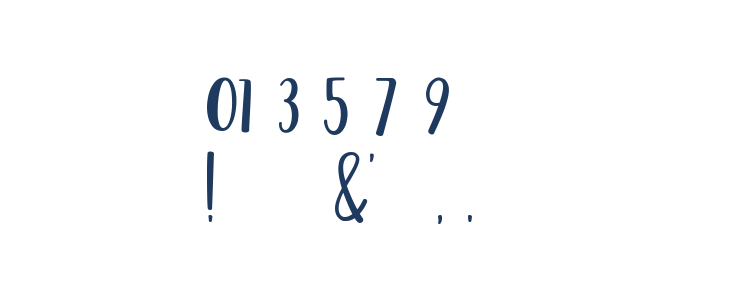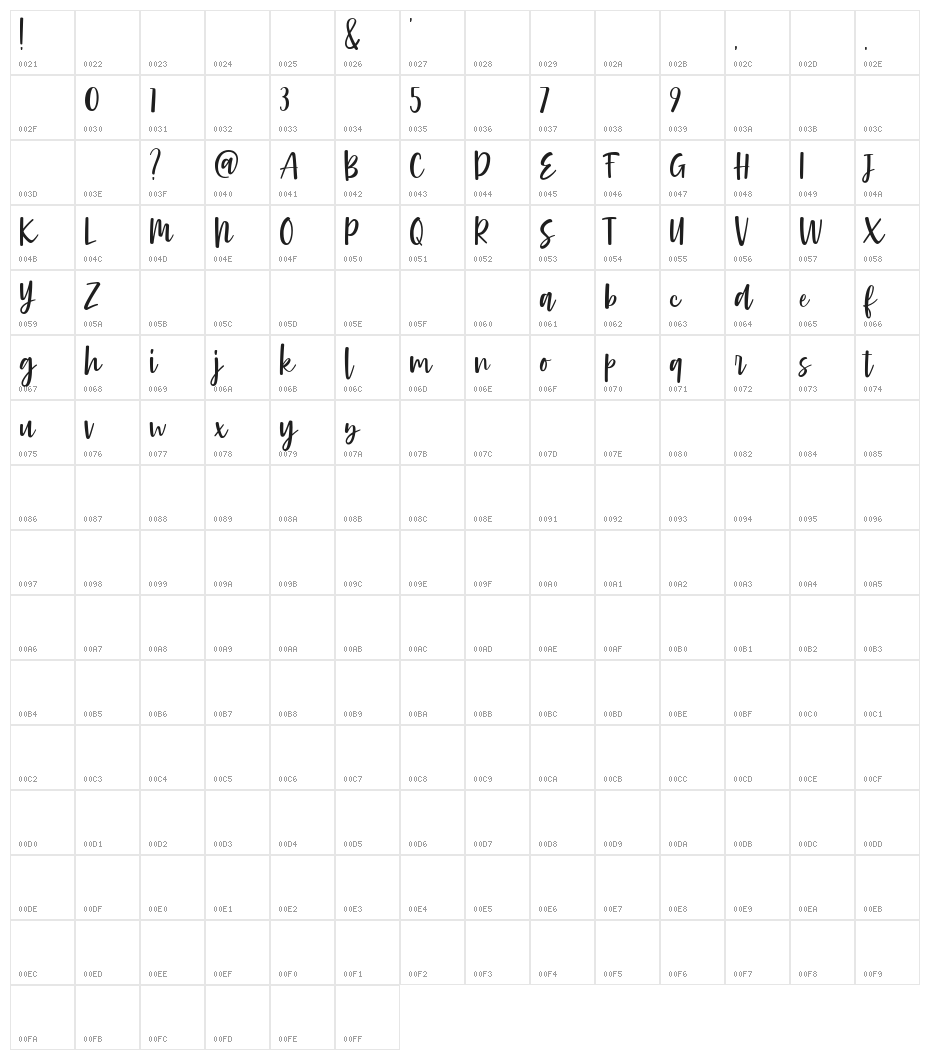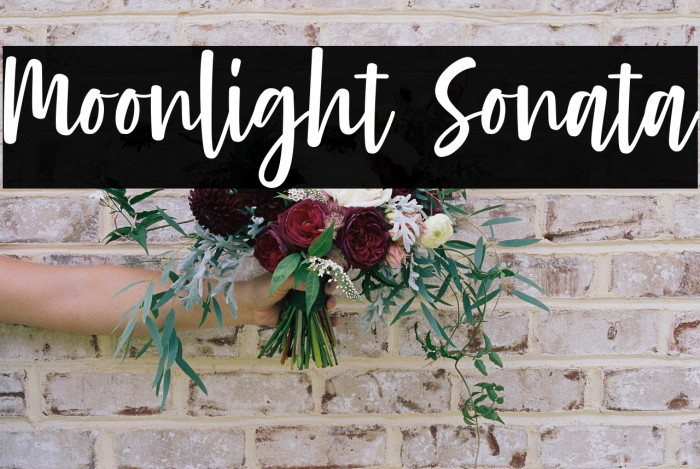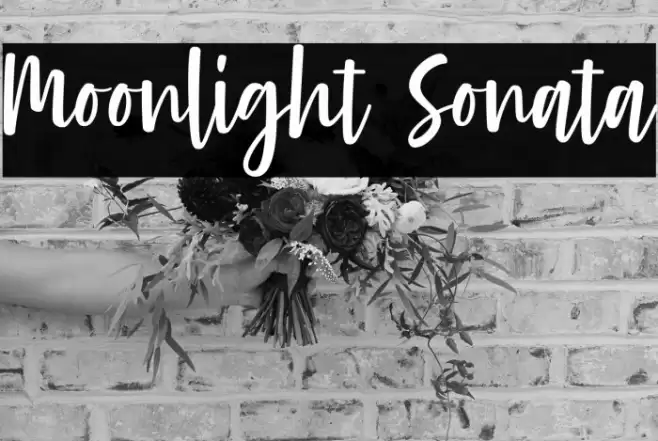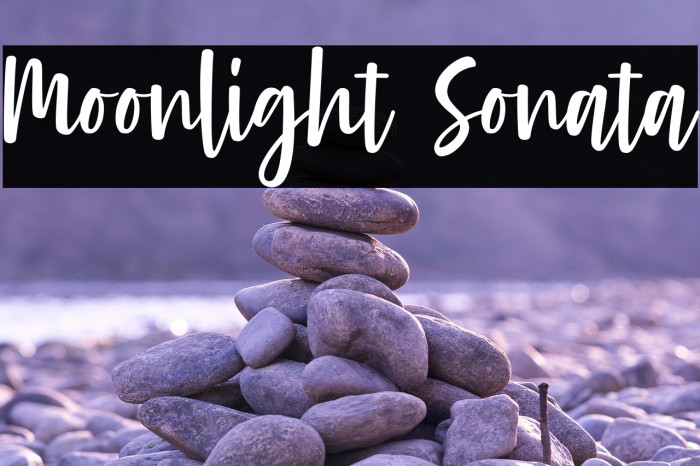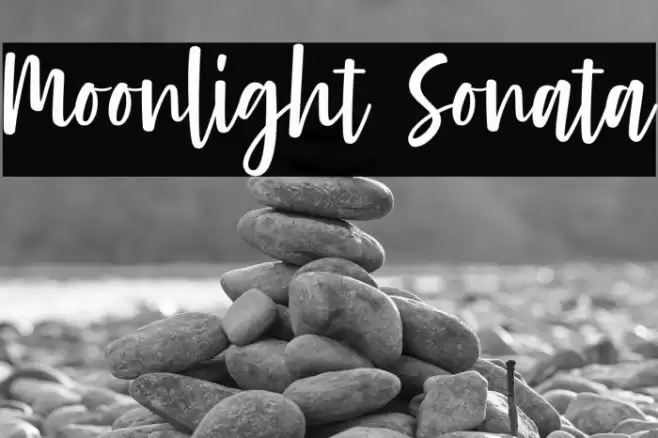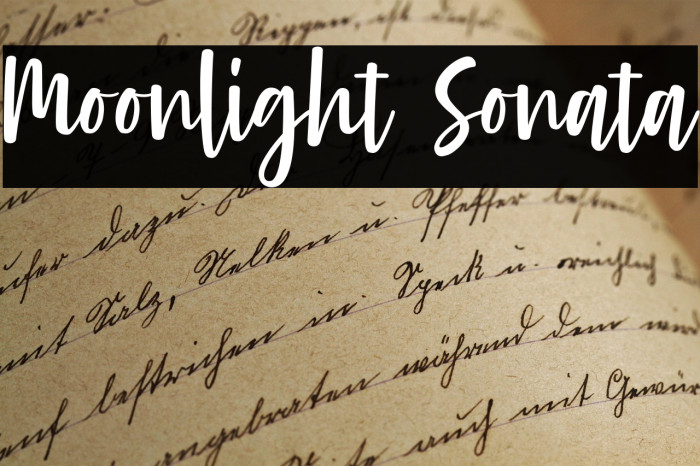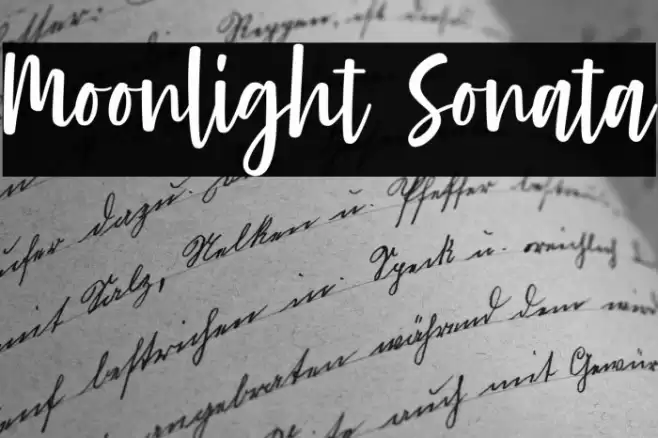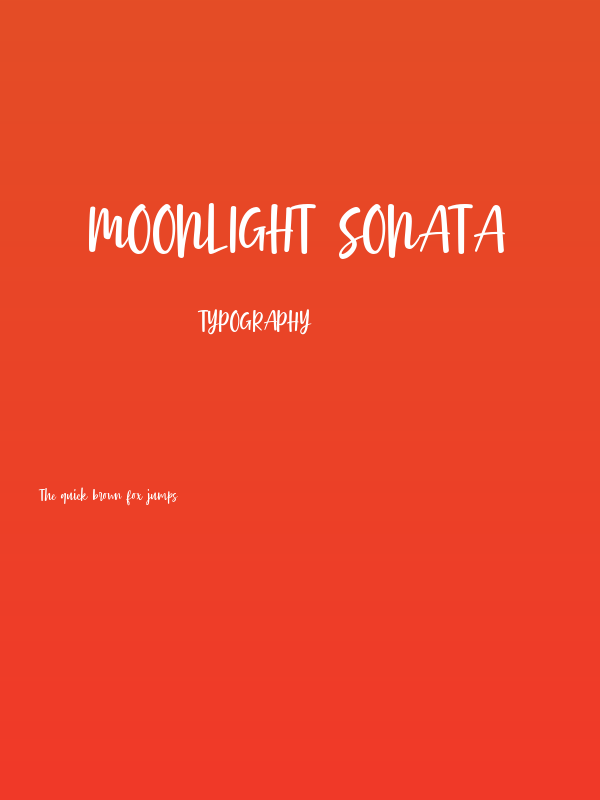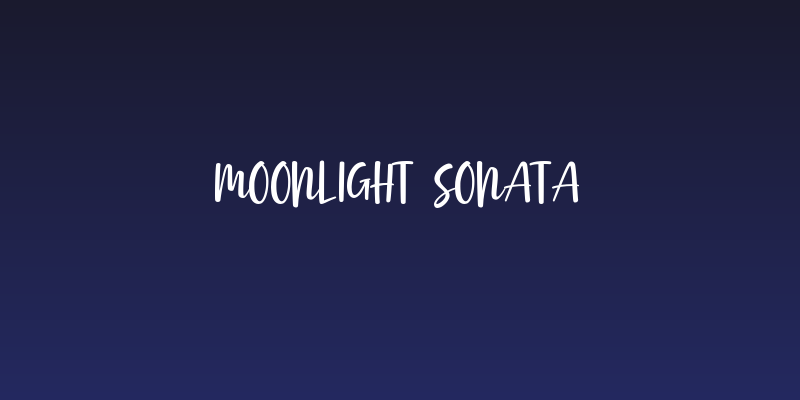
Moonlight Sonata Font
Moonlight Sonata Description
This font features a lively and expressive handwritten style, characterized by its fluid and dynamic strokes. The uppercase letters are bold and slightly slanted, giving a sense of movement and energy. The lowercase letters maintain a consistent flow, with some characters extending below the baseline, adding to the casual and informal feel. The numbers are playful and match the overall style, while the special characters integrate seamlessly with the rest of the set. This font exudes a sense of creativity and spontaneity, making it ideal for projects that require a personal touch.
Overall StyleCasual and Creative
Use CaseLogos, Headlines, Invitations
Proposed ProjectsIdeal for greeting cards, invitations, social media graphics, and branding projects that require a personal and creative touch.